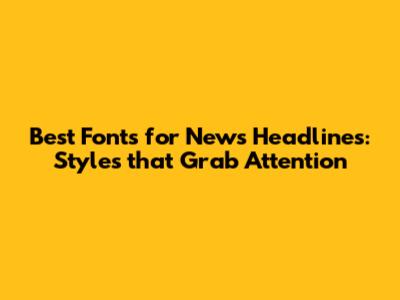
Choosing the right font for news headlines is super important, guys. It's the first thing readers see, and it can make or break whether they decide to dive into the story. A good headline font needs to be legible, eye-catching, and reflective of the news organization’s brand. Think about it: the font sets the tone! Is it serious and authoritative, or more modern and approachable? Getting this right can seriously boost readership and keep people coming back for more.
Why Font Choice Matters for News Headlines
Font choice really matters for news headlines because it's all about grabbing attention and setting the right tone. When people are bombarded with tons of information every day, a well-chosen font can be that special sauce that makes your headline stand out. Think of it like this: the font is the voice of your headline. If it’s too boring or hard to read, people will just scroll right past it. But if it’s clear, engaging, and fits the story, readers are way more likely to click and read on. Plus, the right font can also build trust and brand recognition. Imagine seeing the same font used by a reliable news source – you start to associate that font with credibility. So, it's not just about looking pretty; it’s about making a connection and keeping readers hooked.
Moreover, the psychology of fonts plays a significant role here. Different fonts evoke different emotions and associations. For example, a bold, serif font might convey authority and tradition, while a sleek, sans-serif font could suggest modernity and innovation. News organizations carefully consider these factors to align their headlines with their overall brand image and the type of news they cover. Readability is another crucial aspect; a fancy or overly stylized font might look cool, but if it's hard to decipher at a glance, it's a no-go for headlines. Ultimately, the goal is to choose a font that not only attracts attention but also communicates the essence of the story clearly and effectively, making readers want to learn more.
Another crucial element to consider is the responsiveness of the font across different devices. With the majority of readers accessing news on their smartphones and tablets, the headline font needs to render crisply and legibly on smaller screens. This often means opting for fonts that are optimized for digital display, with clear letterforms and adequate spacing. Additionally, the font should be scalable without losing its visual appeal or readability. Testing the font on various devices and browsers is essential to ensure a consistent and user-friendly experience for all readers. By paying attention to these technical considerations, news organizations can ensure that their headlines make a strong impact, regardless of how or where they are viewed.
Key Characteristics of Effective Headline Fonts
When we talk about effective headline fonts, there are a few key characteristics that really make a difference. First off, readability is king. If people can't quickly understand the headline, they're going to move on. You want a font that's clear and easy on the eyes, even at a glance. Think about fonts that have good spacing and well-defined letterforms. Next up is impact. The font should grab attention and make a statement. This doesn't necessarily mean it has to be super flashy, but it should have a presence that draws readers in. Weight and size play a big role here – a bolder font can really stand out. Then there's versatility. A good headline font should work well in different sizes and on different backgrounds. It should also pair nicely with the body text font, creating a cohesive look. And finally, it should align with the news organization's brand. Is the brand serious and traditional, or modern and edgy? The font should reflect that personality.
Furthermore, the contrast between the font and the background is a critical factor in ensuring readability. A headline font that blends in with the background will be difficult to read, especially for users with visual impairments. Opting for high-contrast color combinations, such as black text on a white background or vice versa, can significantly improve readability and make the headline stand out. Additionally, the letter spacing and line height of the font should be carefully adjusted to prevent the letters from appearing too crowded or too sparse. Proper kerning and tracking can enhance the visual appeal of the headline and make it easier for readers to scan and comprehend the text. By paying attention to these details, news organizations can create headlines that are not only visually appealing but also highly accessible and readable for a wide range of users.
Finally, consider the emotional impact of the font. Different fonts evoke different feelings, and choosing a font that aligns with the tone and subject matter of the news story can enhance its overall impact. For example, a bold and serious font might be appropriate for a hard-hitting news story, while a lighter and more playful font could be used for a feature article or human-interest piece. By carefully considering the emotional connotations of different fonts, news organizations can create headlines that resonate with readers on a deeper level and leave a lasting impression. Ultimately, the goal is to choose a font that not only attracts attention but also communicates the essence of the story and evokes the desired emotional response from the audience.
Top Font Styles for News Headlines
Okay, let’s dive into some top font styles that work great for news headlines. First off, you've got your classic serif fonts like Times New Roman and Georgia. These fonts are super readable and give a sense of authority and tradition. They're great for serious news outlets that want to convey trust and reliability. On the other hand, sans-serif fonts like Arial, Helvetica, and Roboto offer a more modern and clean look. They're easy to read on screens, which is a big plus these days, and they work well for news sites that want to appear up-to-date and accessible. Then there are slab serif fonts like Roboto Slab and Arvo, which are kind of a mix of the two. They have a strong, blocky feel that can really grab attention without sacrificing readability. And don't forget about display fonts! These are more decorative and can be used sparingly for special features or opinion pieces where you want to add some extra flair. Just remember not to go overboard – readability should always be the top priority.
To elaborate further, geometric sans-serif fonts like Futura and Avenir are also popular choices for news headlines due to their clean lines and modern aesthetic. These fonts often convey a sense of objectivity and efficiency, making them well-suited for news organizations that want to project an image of impartiality and professionalism. Additionally, condensed fonts, such as Impact or Bebas Neue, can be useful for headlines that need to fit into a limited space without sacrificing legibility. However, it's important to use condensed fonts sparingly, as they can sometimes appear cramped or difficult to read if overused. Ultimately, the best font style for news headlines will depend on the specific brand identity and editorial style of the news organization, as well as the target audience and the type of news being covered.
Another important consideration is the font pairing. The headline font should complement the body text font to create a cohesive and visually appealing reading experience. A common strategy is to pair a serif font for the body text with a sans-serif font for the headlines, or vice versa. This creates a visual contrast that helps to distinguish the headlines from the body text and makes the overall layout more engaging. However, it's important to choose fonts that are harmonious and don't clash with each other. Experimenting with different font combinations and seeking feedback from designers can help news organizations find the perfect font pairing for their brand.